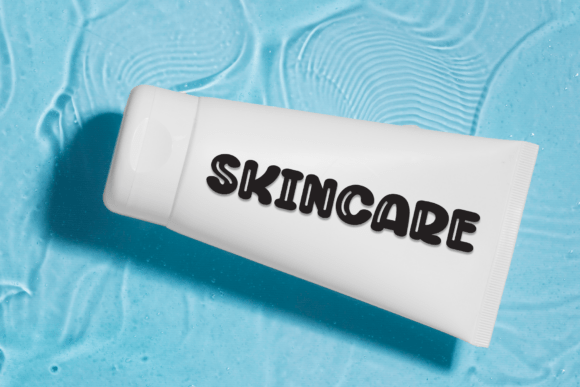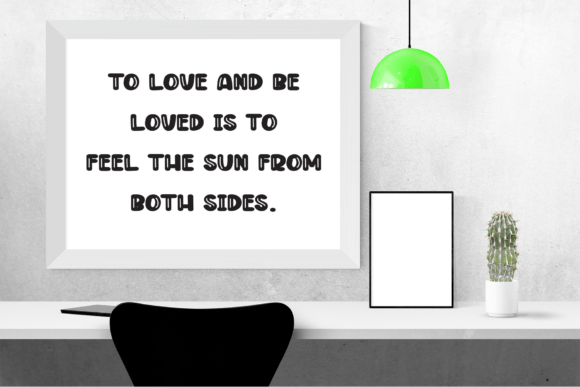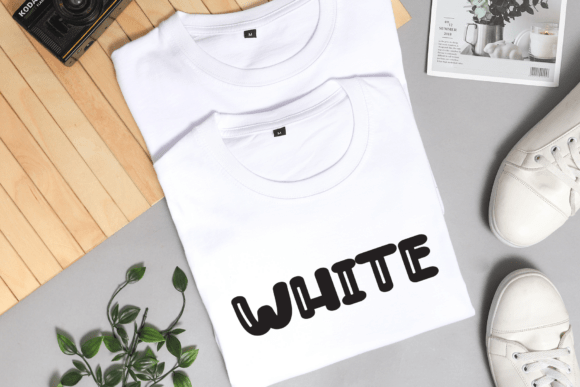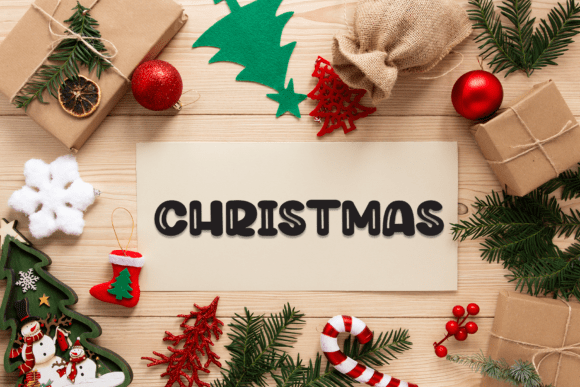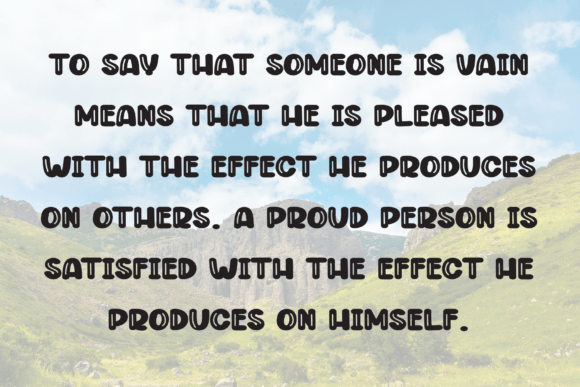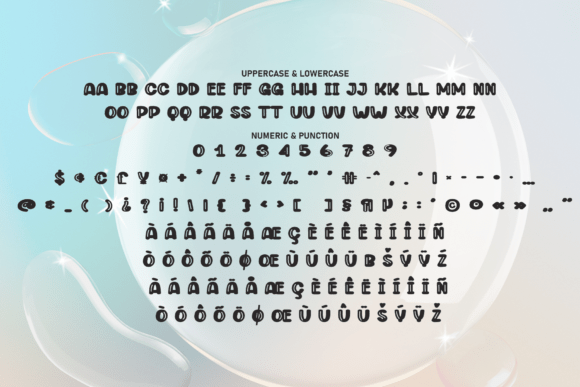
Bubble Wonder Font: Elevate Your Designs with a Friendly and Approachable Vibe
In the world of typography, fonts play a crucial role in conveying the tone and personality of a brand or design. If you’re looking for a font that combines simplicity with a friendly and approachable vibe, look no further than the Bubble Wonder Font. This casual and neat display font is perfect for designers and crafters seeking to add a warm and inviting touch to their creations.
Clean Lines, Balanced Letterforms, and Subtle Rounded Edges
One of the standout features of the Bubble Wonder Font is its clean lines, balanced letterforms, and subtle rounded edges. These characteristics come together to create a font that captures the essence of modern handwritten typography with a polished finish. The clean lines provide a crisp and structured look, while the balanced letterforms ensure that each character is harmonious and visually appealing. The subtle rounded edges add a touch of softness, giving the font a friendly and approachable feel.
Ideal for Branding, Headlines, Packaging, and Digital Content
The Bubble Wonder Font is incredibly versatile and can be used in a variety of design applications. It’s ideal for branding, headlines, packaging, and digital content, making it a valuable addition to any designer’s toolkit. Whether you’re creating a logo, crafting a headline, or designing a product label, this font is sure to deliver clarity and charm in equal measure.
Adding a Warm and Inviting Touch to Your Designs
One of the key benefits of the Bubble Wonder Font is its ability to add a warm and inviting touch to any design. The font’s friendly and approachable vibe makes it perfect for designs that require a personal and relatable feel. Whether you’re creating a children’s book, designing a website, or crafting a social media post, this font is sure to help you connect with your audience.
Versatility and Legibility
The Bubble Wonder Font is not only visually appealing but also highly legible. Its crisp structure and versatile style make it suitable for a wide range of design applications, from large headlines to smaller body text. The font’s clarity and charm ensure that your message is conveyed effectively, making it perfect for designs that require a professional and polished finish.
The Bubble Wonder Font is a perfect choice for designers and crafters seeking to elevate their designs with a friendly and approachable vibe. Whether you’re a professional designer or a DIY crafter, this font is sure to inspire your creativity and help you create stunning designs. With its versatility, legibility, and charm, the Bubble Wonder Font is an excellent addition to any design toolkit.
Key Features of the Bubble Wonder Font
- Clean lines and balanced letterforms for a crisp and structured look
- Subtle rounded edges for a friendly and approachable vibe
- Ideal for branding, headlines, packaging, and digital content
- Highly legible and versatile, suitable for a wide range of design applications
- Perfect for designs that require a warm and inviting touch
In conclusion, the Bubble Wonder Font is an excellent choice for designers and crafters seeking to add a friendly and approachable vibe to their designs. With its clean lines, balanced letterforms, and subtle rounded edges, this font captures the essence of modern handwritten typography with a polished finish. Its versatility, legibility, and charm make it perfect for a wide range of design applications, from branding and headlines to packaging and digital content. So why wait? Give the Bubble Wonder Font a try and elevate your designs to the next level!